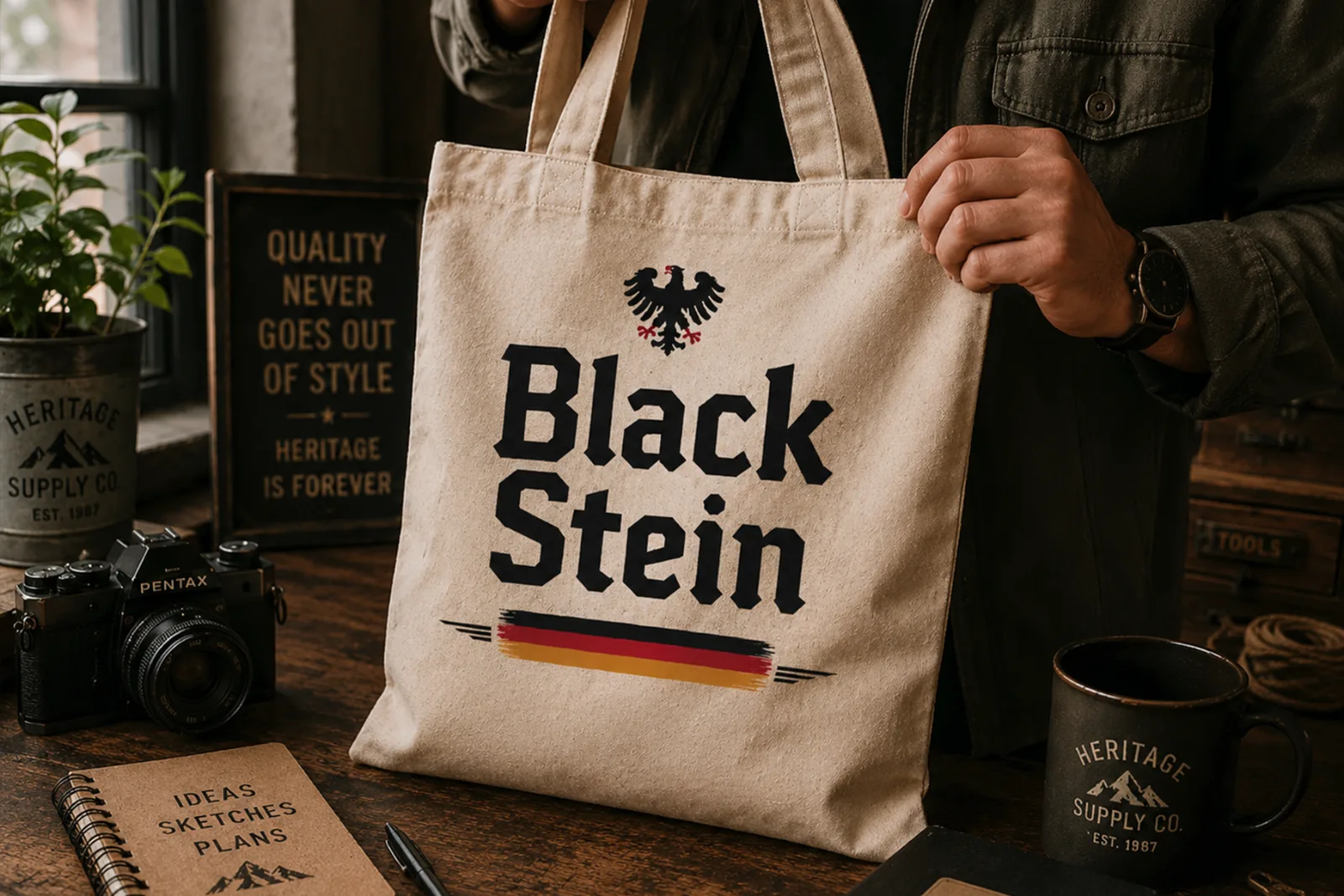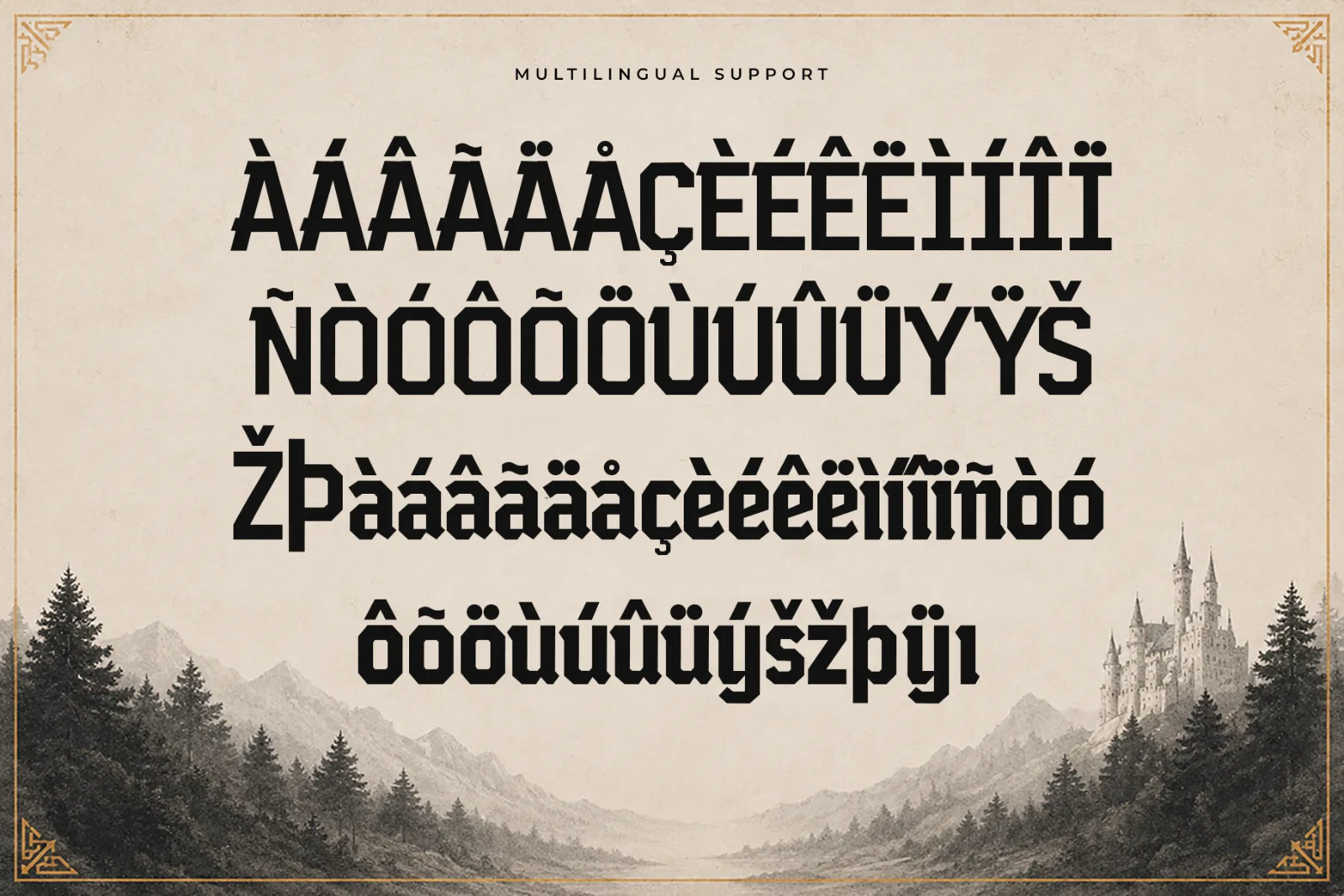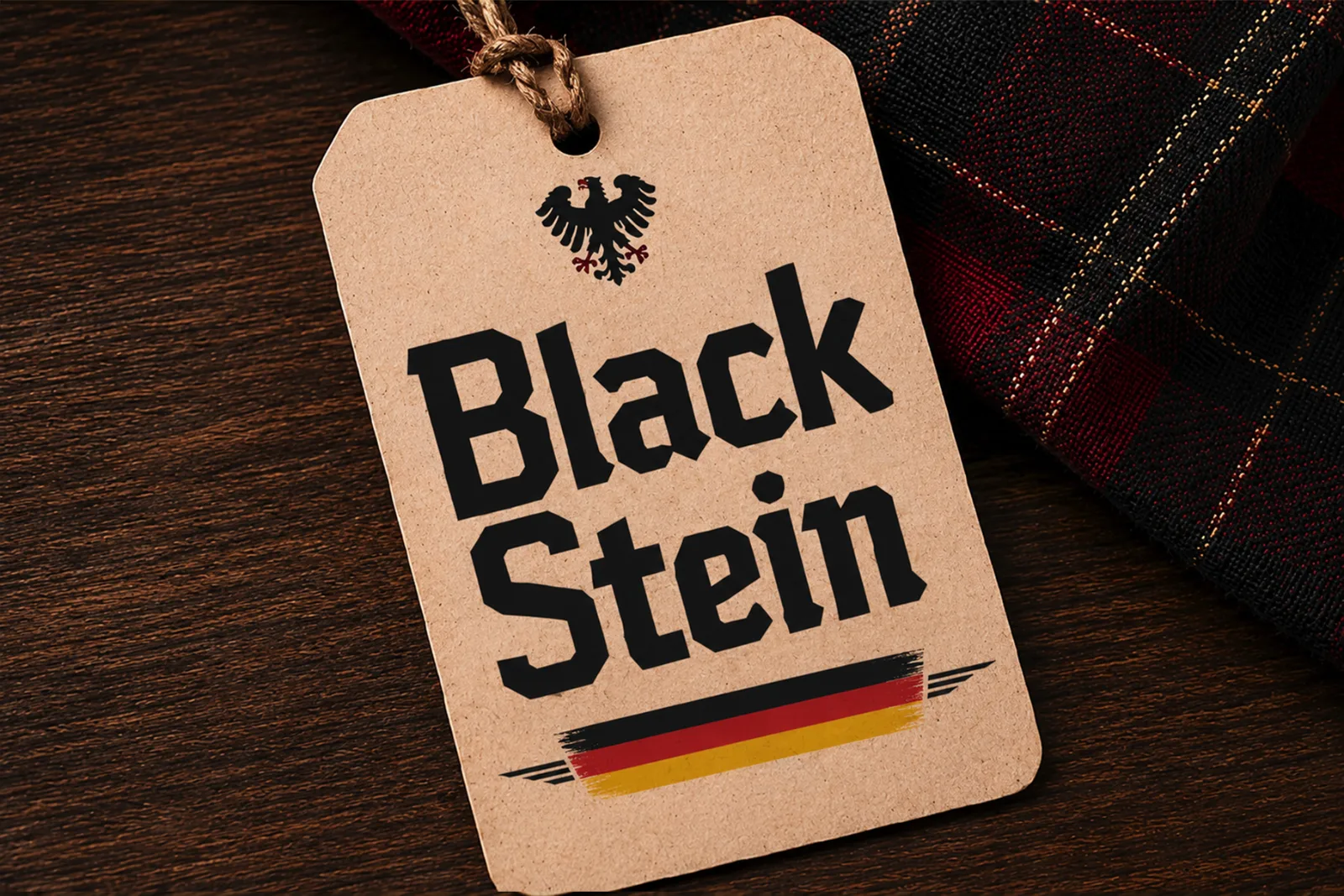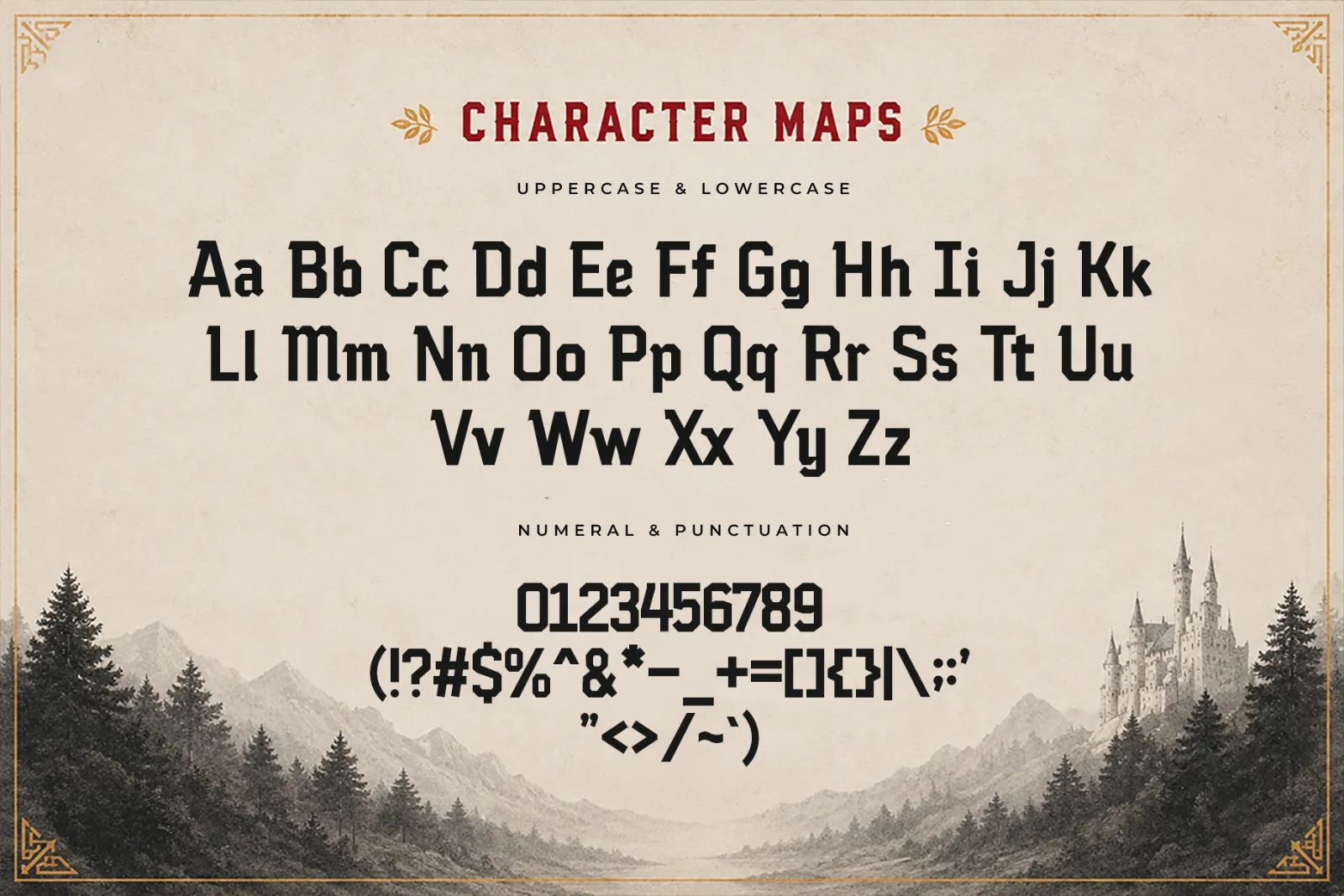
Berg Werk – German Inspired Display Font
Berg Werk is a bold German-inspired display font built with strong geometric forms, sharp details, and a distinctive heritage character. Its structured letterforms combine a vintage European feel with a modern display style, making it ideal for designs that need strength, tradition, and visual impact.
Inspired by classic German visual culture, mountain regions, industrial identity, and historic poster typography, Berg Werk works beautifully for branding, posters, labels, packaging, event graphics, apparel, and bold editorial designs.
Perfect for:
- German-Inspired Branding
- Posters & Headlines
- Beer & Brewery Branding
- Labels & Packaging
- Heritage Designs
- Industrial Graphics
- Event Posters
- Apparel & Merchandise
- Restaurant Branding
- Editorial Design
- Logo Design
- Vintage-Themed Projects